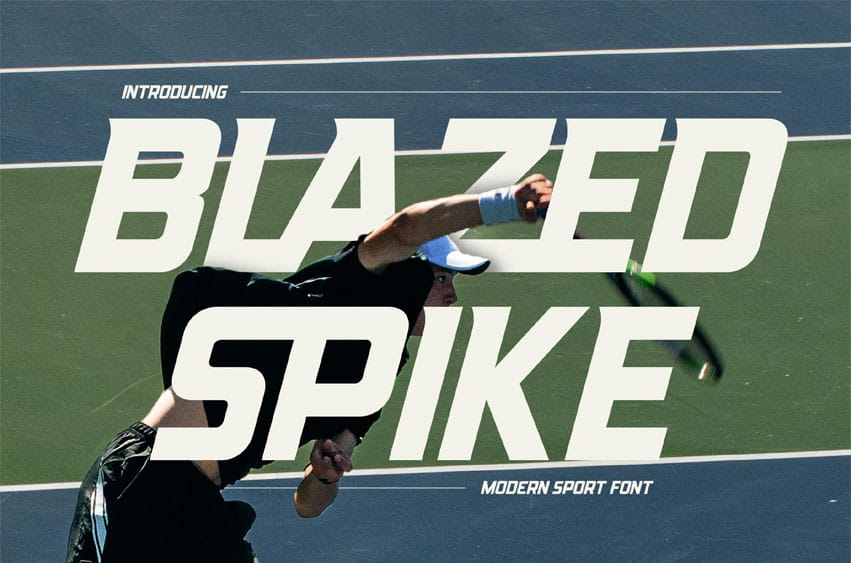
Blazed Spike Font is a bold and modern sport-inspired typeface that brings high energy, dynamic movement, and a competitive edge to your designs. Featuring aggressive angles, sharp strokes, and a forward-leaning stance, this font radiates speed, power, and momentum—perfect for brands that demand attention and impact.
Whether you’re creating sports team logos, activewear branding, event posters, fitness campaigns, or dynamic headlines, Blazed Spike delivers the boldness and spirit of athleticism with style.